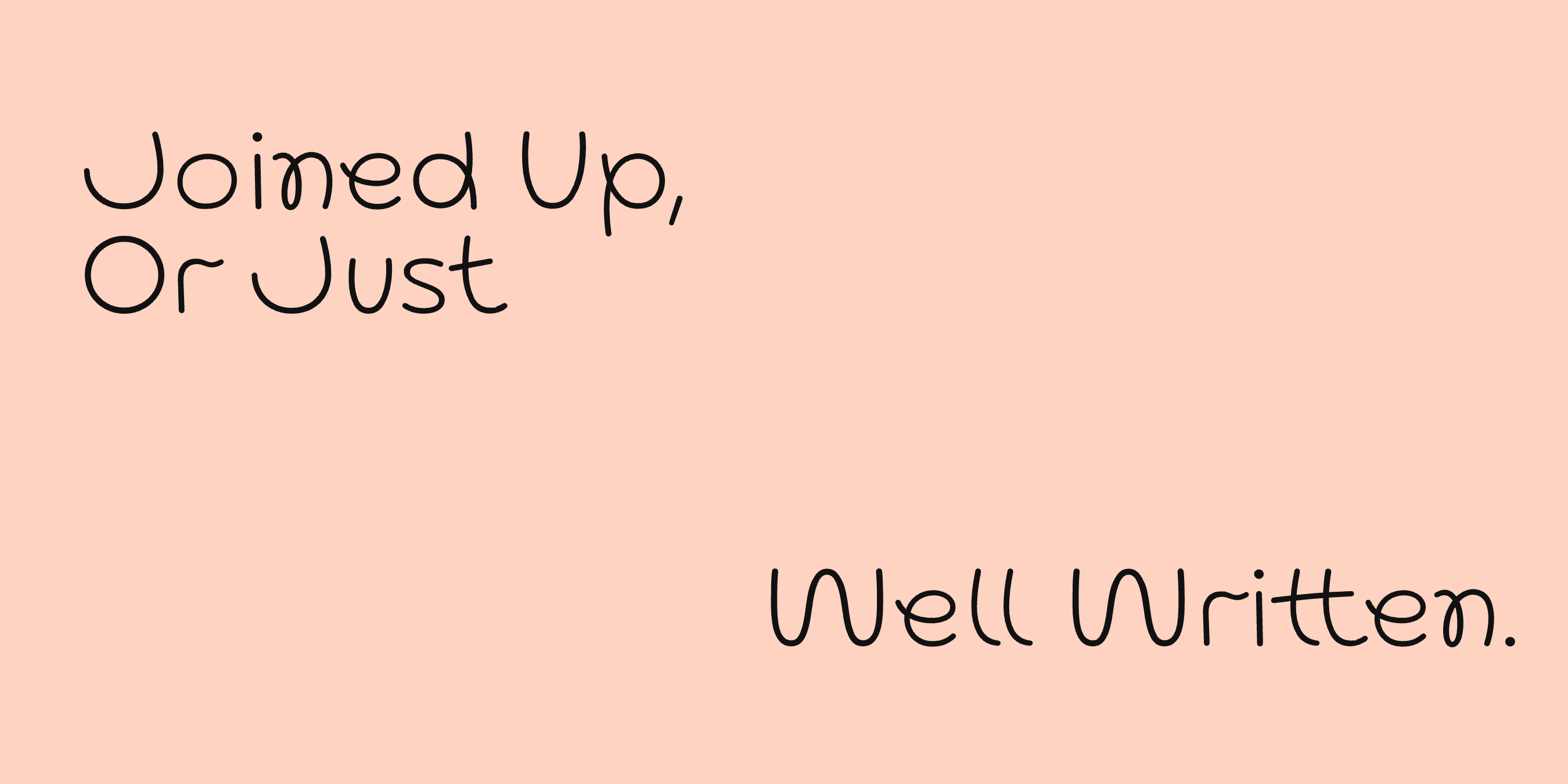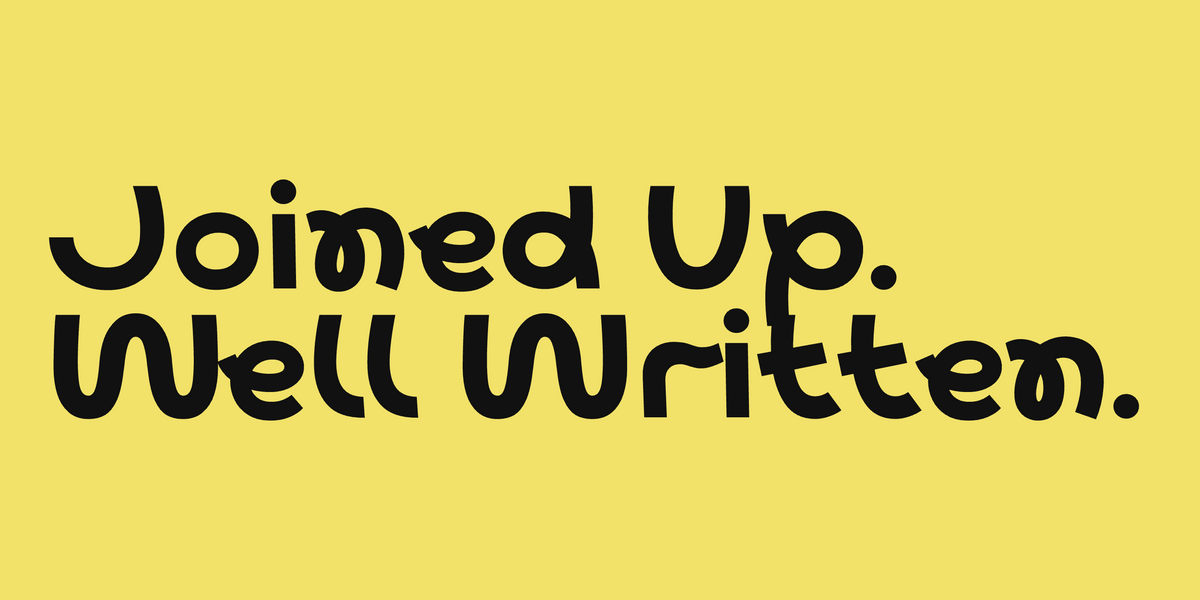
“Script font” gets used for anything that looks like it was written rather than drawn, which makes it close to useless as a search term when you’re actually picking type. A formal wedding script and a marker-pen logotype are both called scripts, and they behave nothing alike on a page.
Here’s the distinction that matters when you’re choosing one, and where the category’s real limits are.
The Short Answer
A script font imitates handwriting with connected or nearly connected letters, descended from formal penmanship. That connection is the defining trait. Everything else — the slant, the flourish, the contrast — is a variation on it.
Script, Handwritten, Calligraphic: The Actual Differences
Script
Letters join. The joins are engineered: a script family has to make every letter pair connect cleanly, which is why good ones carry large glyph sets and heavy contextual alternate logic. Formal scripts descend from copperplate and engraving; casual scripts from signwriting and brush lettering.
Handwritten
Letters don’t need to join. The character comes from irregularity — a baseline that moves, strokes that vary, terminals that don’t match. Handwritten type is looser, more personal, and far easier to set well because you aren’t fighting connection logic.
Calligraphic
Refers to the tool, not the connection. A broad-nib or pointed-pen origin shows in the thick-and-thin, wherever the stroke changes direction. A face can be calligraphic without being a script at all — plenty of serifs have calligraphic bones.
How To Tell Which You Need
- Wedding, invitation, certificate — a true script. The connection is the point, and formality comes from it.
- Logotype or wordmark — usually handwritten, not script. You’re setting three or four words once, and you want control over each letter rather than automatic joins.
- Packaging or a label — handwritten. Scripts lose legibility fast at small sizes and on curved surfaces.
- Body copy — neither. Both fail below roughly 14px.
A Note On What We Make
Mojomox doesn’t sell a true connected script. What’s here is script-adjacent: handwritten and calligraphic faces that carry the personality without the connection logic. That’s deliberate — a connected script is a different kind of project, and a badly-connected one is worse than none.
If a handwritten face will do the job, the closest options are set out in handwritten fonts for logos and branding, grouped by whether they were drawn with a line, a brush or a marker. Lace and Lace Rounded are the loopy, continuous ones and come nearest to a script feel. Kijs is the calligraphic one — a serif with pointed-pen contrast and a cursive i, which is a different route to the same warmth.
Practical Notes If You Do Use One
- Never set a script in all caps. Capitals in a connected face were never designed to join to each other.
- Give it room. Tight tracking fights the letterforms; the irregularity turns into noise when words crowd.
- Check the alternates. In lettering, one specific letter usually needs to sit differently. A face without alternates will force a compromise.
- Test the ampersand and the numerals. They’re where rushed script families fall apart.